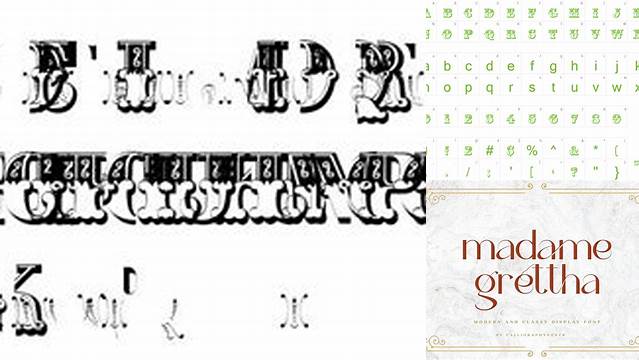
Are you looking to add a touch of elegance and sophistication to your designs? The Madame Letters font might be just what you need! This beautiful typeface exudes charm and class, making it perfect for a variety of projects. In this comprehensive guide, we'll dive deep into the world of Madame Letters font, exploring its characteristics, ideal use cases, and, most importantly, how you can download it for free. So, let's get started and discover how this exquisite font can elevate your creative endeavors.
What Makes Madame Letters Font So Special?
Madame Letters font isn't just another typeface; it's a statement. Its unique character stems from its elegant strokes and refined curves, giving it a distinct personality that sets it apart from more generic fonts. This font family often includes a range of styles, from regular to bold, and sometimes even italic variations, offering versatility for various design needs. The Madame Letters font is often characterized by its delicate serifs, which are the small decorative strokes at the end of the main strokes of a letter. These serifs contribute to its classic and sophisticated look, making it suitable for projects that require a touch of formality and grace. The spacing between letters is carefully considered to ensure readability and visual appeal, and the overall design is meticulously crafted to create a harmonious and balanced appearance. The font’s aesthetic appeal lies in its ability to evoke a sense of timeless beauty, making it a favorite among designers who seek to add a touch of old-world charm to their modern creations. Many designers appreciate the Madame Letters font for its versatility. It works exceptionally well in both print and digital media, making it a valuable asset for a wide range of projects. Whether you're designing a wedding invitation, a brand logo, or a website header, the Madame Letters font can bring a level of sophistication that few other fonts can match. Its legibility at various sizes also makes it practical for body text, ensuring that your message is not only beautiful but also easy to read. Furthermore, the font’s compatibility with various design software and operating systems means that you can seamlessly integrate it into your existing workflow. The availability of different weights and styles within the font family allows for creative flexibility, enabling you to create visual hierarchies and emphasize key elements in your design. In short, the Madame Letters font is a powerful tool that can significantly enhance the visual impact of your projects.
Ideal Use Cases for Madame Letters Font
The versatility of the Madame Letters font makes it a fantastic choice for a wide range of projects. Consider using it for wedding invitations to convey elegance and romance. Its delicate serifs and graceful curves add a touch of sophistication, making it perfect for setting the tone for a special occasion. The Madame Letters font also shines in branding and logo design, especially for businesses that aim to project a sense of luxury, tradition, or high quality. Think of high-end boutiques, artisanal brands, or classic service providers – the Madame Letters font can help create a visual identity that resonates with their target audience. In the realm of publishing, this font is an excellent option for book covers and titles, particularly for genres like historical fiction, romance, or classic literature. Its timeless appeal can capture the essence of the story and draw readers in. Moreover, the Madame Letters font is well-suited for editorial design, such as magazines and brochures, where it can add a touch of refinement to headlines and body text. Its legibility and elegant appearance make it a great choice for conveying information in a stylish and accessible manner. Beyond these specific applications, the Madame Letters font can also be used in a variety of creative projects, such as posters, flyers, and social media graphics. Its versatility allows it to adapt to different styles and themes, making it a valuable asset in any designer's toolkit. The key is to use it judiciously and in contexts where its elegant and sophisticated nature can truly shine. By understanding its strengths and applying it appropriately, you can leverage the Madame Letters font to create visually stunning and impactful designs. Experiment with different weights, sizes, and combinations with other fonts to discover the full potential of this beautiful typeface.
Tips for Using Madame Letters Font Effectively
To truly make the Madame Letters font shine in your designs, it's important to use it effectively. This means considering factors like font pairing, spacing, and overall context. When it comes to font pairing, the Madame Letters font, with its elegant serif style, typically works well with clean, sans-serif fonts. A classic combination is to use Madame Letters for headings and a simple sans-serif font like Helvetica or Arial for body text. This creates a visual hierarchy that is both stylish and easy to read. Another approach is to pair Madame Letters with a more modern serif font that has a similar weight and x-height. This can create a cohesive and sophisticated look. Experiment with different combinations to see what works best for your project, but always aim for a balance between elegance and readability. Spacing, both between letters (kerning) and lines (leading), is another crucial aspect of using the Madame Letters font effectively. Because of its delicate serifs and intricate details, this font can sometimes appear crowded if the spacing is too tight. Adjust the kerning to ensure that each letter has enough breathing room, and increase the leading to improve readability, especially in longer blocks of text. Pay attention to the overall visual rhythm of the text and make adjustments as needed. The context in which you use the Madame Letters font also plays a significant role in its effectiveness. As mentioned earlier, this font is particularly well-suited for projects that require a touch of elegance and sophistication, such as wedding invitations, branding materials for luxury businesses, and editorial designs for high-end publications. However, it might not be the best choice for projects that require a more modern or casual aesthetic. Consider the overall tone and message of your design and choose fonts that align with it. In addition to these general tips, it's also important to experiment with different weights and styles within the Madame Letters font family. If the font includes bold or italic variations, use them strategically to emphasize key words or phrases. Be mindful of overusing these styles, as too much emphasis can diminish their impact. By following these tips and paying attention to the details, you can harness the full potential of the Madame Letters font and create designs that are both beautiful and effective.
The Madame Letters font is a timeless and elegant typeface that can add a touch of sophistication to any design project. Its delicate serifs, graceful curves, and versatile nature make it a favorite among designers who seek to create a sense of luxury, tradition, or refinement. Whether you're designing wedding invitations, branding materials, book covers, or editorial layouts, the Madame Letters font can help you achieve a visually stunning and impactful result. Finding a free download of this beautiful font may require a bit of searching, but with the tips and resources provided in this guide, you're well-equipped to locate a reliable source and add it to your font library. Remember to always check the licensing agreement before using a free font to ensure that it aligns with your intended purpose. Once you've downloaded and installed the Madame Letters font, experiment with different pairings, spacing, and contexts to discover its full potential. By using it effectively, you can elevate your designs and create a lasting impression. So go ahead, download the Madame Letters font, and let your creativity flow!